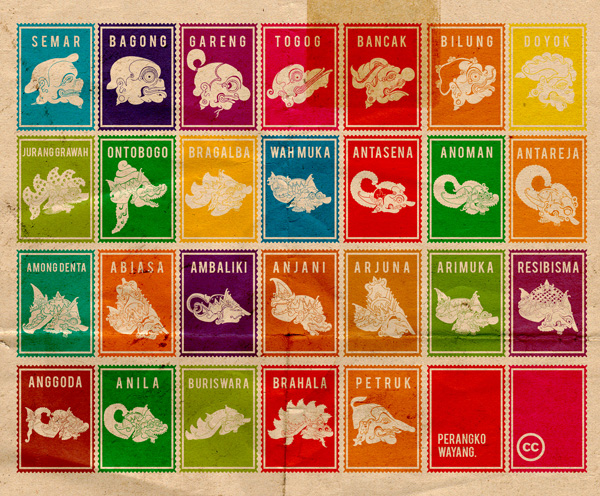
Wayang is shadow puppets culture in Indonesia, I make "Perangko Wayang" to documentation a culture and to make some toys like playing card to all my child in my town Juwana |